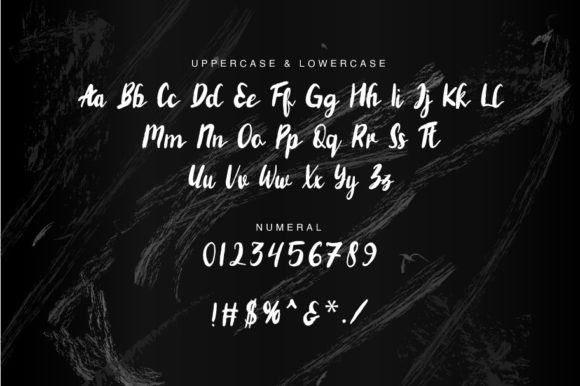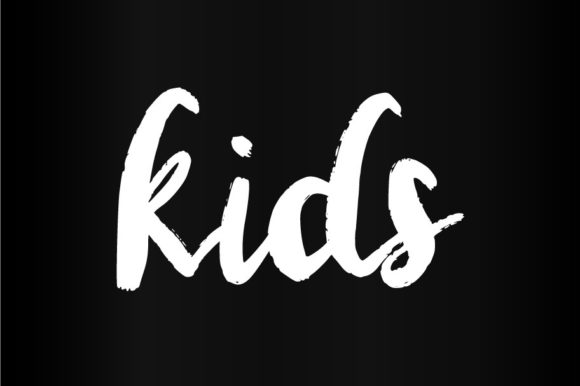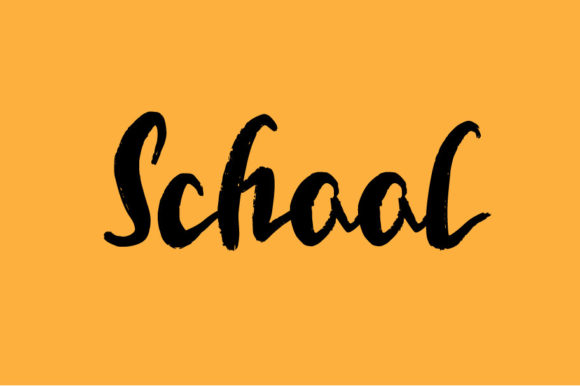
Introduction to Sambul Font
Have you ever been in the midst of a creative project, pouring your heart and soul into every detail, only to realize that something’s missing? That’s where the perfect font can make all the difference. For designers, the right font can elevate a design from good to great, adding a touch of personality and style that sets it apart from the rest. And when it comes to creating a luxury feel, there’s one font that stands out from the crowd: the Sambul Font.
This playful and cursive script font is a design lover’s dream come true. With its dancing characters that seem to move along the baseline, the Sambul Font adds a level of sophistication and elegance to any project. Whether you’re working on a high-quality brochure, a website, or a marketing campaign, this font is sure to make a lasting impression. And the best part? It’s available for free download, making it a valuable resource for designers of all levels.
Key Features of Sambul Font
- High-quality font designed for creative projects, suitable for use in various design applications.
- Unique, handcrafted design with a transparent background, allowing for seamless integration with any background image or color.
- Perfect for designers looking for a free design resource that adds a touch of elegance and sophistication to their creative projects.
Honest Review: Sambul Font
I recently stumbled upon the Sambul Font and was eager to put it to the test in my latest design project. As a designer, I’m always on the lookout for high-quality, free resources that can elevate my work.
Here are some pros and cons of the Sambul Font:
- ✨ High-quality design: The Sambul Font has a unique and stylish design that adds a touch of elegance to any creative project.
- ✨ Transparent background: The font has a transparent background, making it easy to customize and combine with other design elements.
- ⚠️ Limited character set: The Sambul Font has a relatively small character set, which may not be suitable for complex projects that require a wide range of characters.
- ⚠️ Not ideal for large text: The font’s design may not be the best choice for large blocks of text, as it can become difficult to read.
Overall, I was impressed with the Sambul Font’s design and ease of use. While it may have some limitations, it’s a great resource for designers working on creative projects and looking for a high-quality, free font.
Experiment with different font sizes, colors, and styles to achieve the desired effect. Use the Sambul Font in combination with other design elements to create a cohesive and visually appealing design. Don’t be afraid to try new things and push the boundaries of what’s possible with this versatile font.
Common Use Cases for Sambul Font
The Sambul Font is perfect for a variety of creative projects, including business cards, brochures, and social media graphics. Its high-quality design and transparent background make it an excellent choice for professional and personal projects alike.